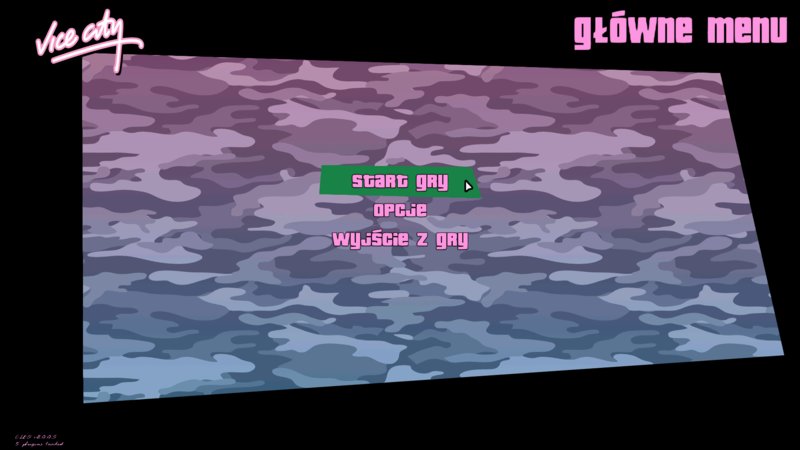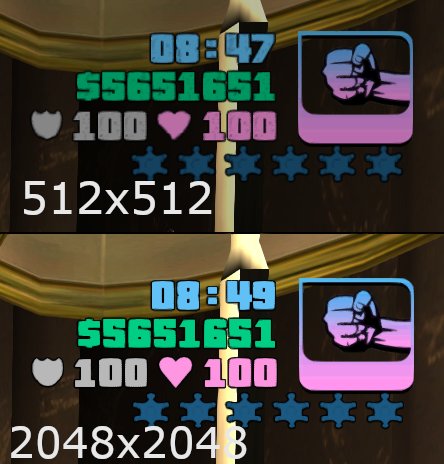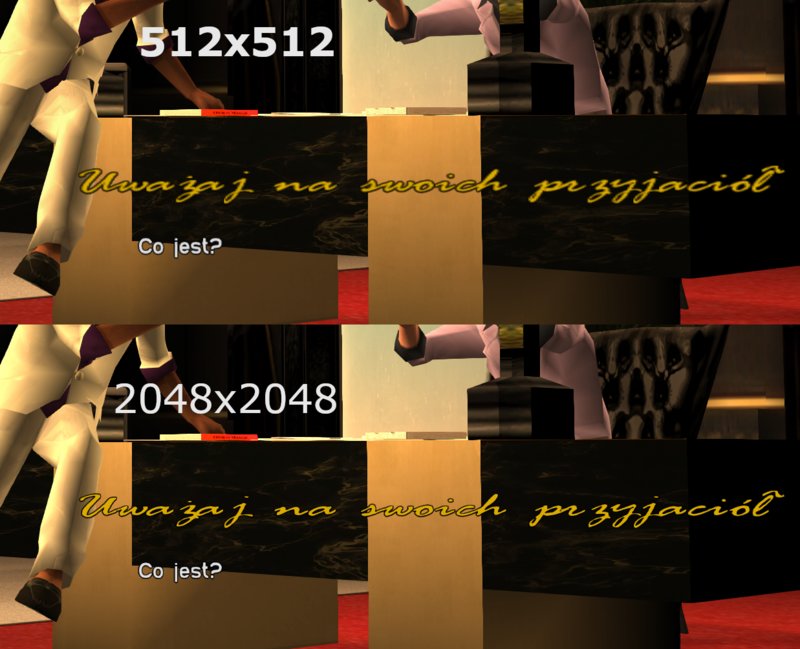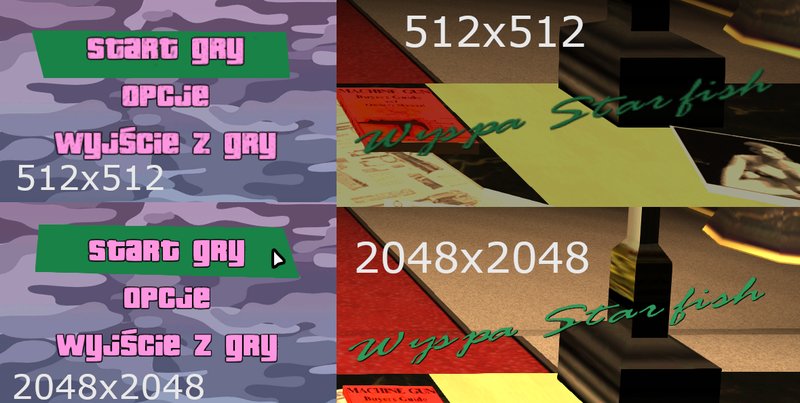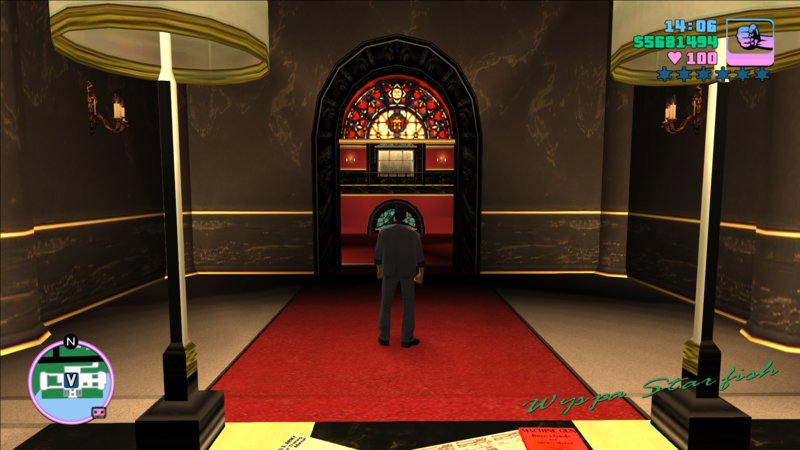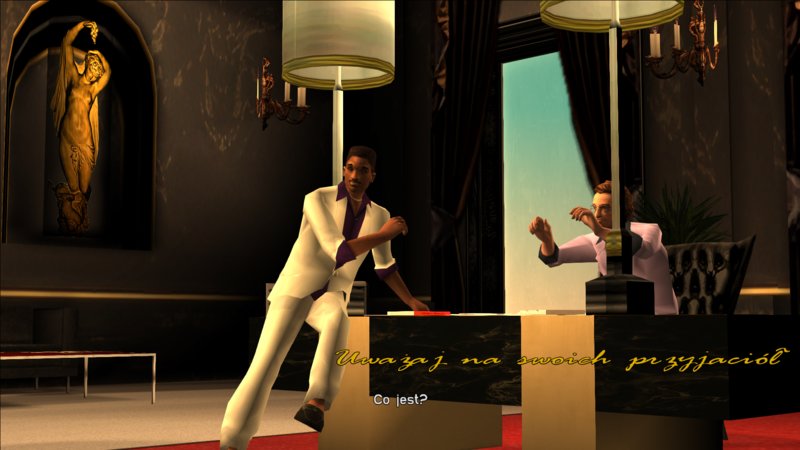
Polish HD Fonts
The font in the HD version is based on the font issued on the one from Cenega. It was proprietary upgraded to a higher resolution and slightly reworked. Have a nice game :)